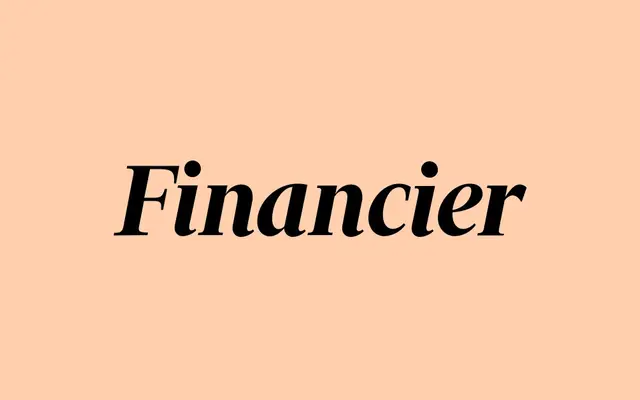
Financier Display
Klim Type Foundry · Kris Sowersby · 2016
Financier Display specimen from Klim Type Foundry
A British-feeling display serif drawn for the 2014 Financial Times redesign, with Perpetua's stately charm in the Gill lineage.
A transitional display serif by Kris Sowersby, drawn for the 2014 Financial Times redesign and released publicly in 2016. The aesthetic comes from Eric Gill's classic letterforms, with Financier Display taking Perpetua's stately charm and the italics reconciling mechanical sloped romans with traditional calligraphic forms at a narrow, slight incline. Six weights from Light to Black across twelve styles plus a variable roman and italic axis cover news mastheads, features and arts pages with a frugal, staccato grace.
Klim classifies it as Modern: Transitional Serif; drawn for the 2014 Financial Times redesign, with the display cut taking Perpetua's stately charm from Eric Gill's lineage.